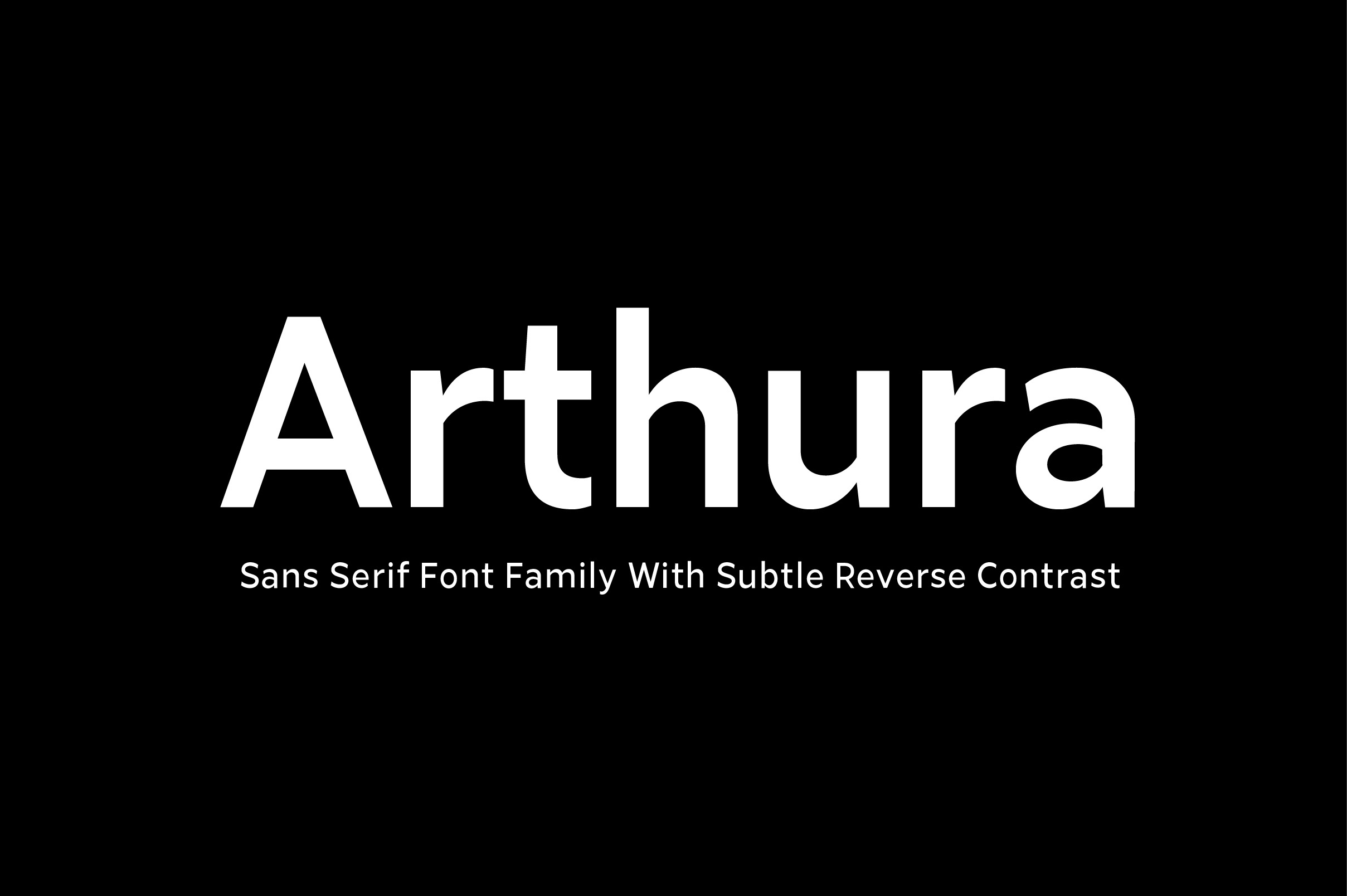
Arthura is a sans serif font family with subtle reverse contrast, particularly visible in its ultra bold 'Black' style. Six weights plus matching italics. Simple geometry and with humanist nuance that adds warmth. t’s a perfect choice for branding, magazines, posters, advertising, packaging, headlines, logos, web, print etc.